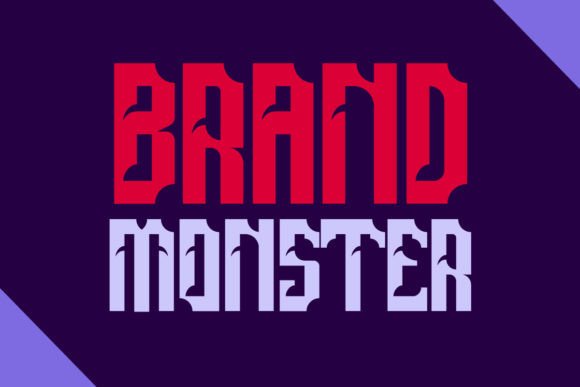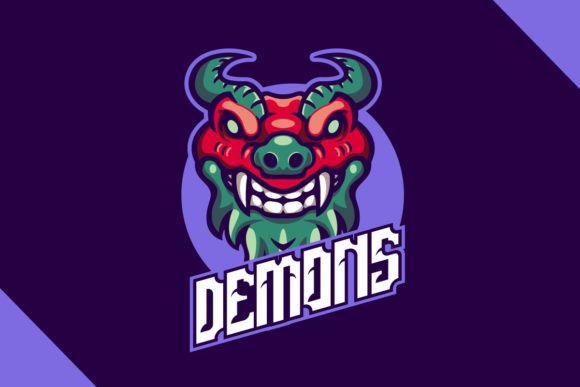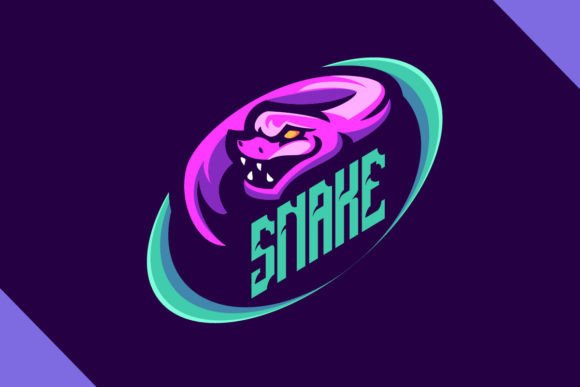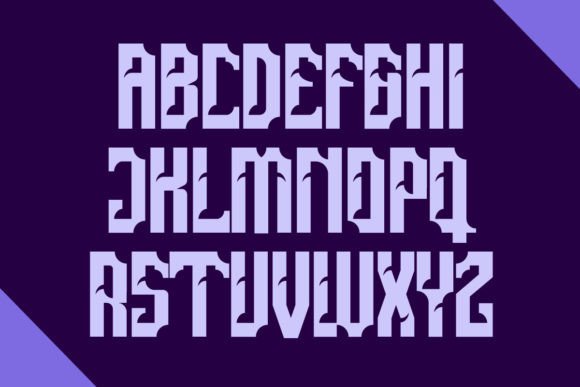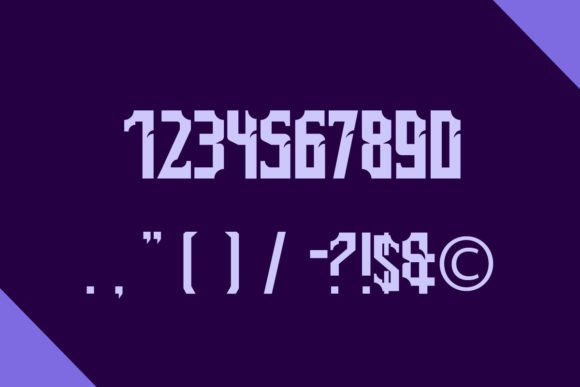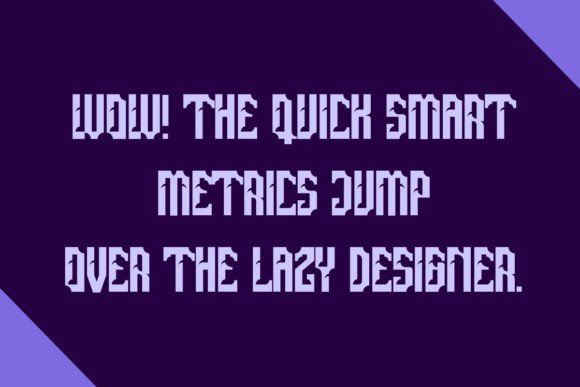
The Power of Dengaren Font: Elevate Your Designs with a Bold Statement
I’ll never forget the time I was working on a sports branding project, tasked with creating a logo that would make a bold statement. I had spent hours browsing through font libraries, but nothing seemed quite right. That was when I stumbled upon Dengaren Font. Its robust and vibrant feel instantly caught my attention, and I knew I had found the perfect fit. In this article, I’ll share my experience with Dengaren Font, its features, and how to make the most of it in your designs.
An Honest Review of Dengaren Font
- ✨ **Bold and Attention-Grabbing**: Dengaren Font is designed to make a statement. Its strong, confident lines demand attention and are perfect for sports-inspired designs.
- ✅ **Versatile**: This font is suitable for a wide range of projects, including team jerseys, league logos, movie posters, and more.
- 💥 **Vibrant Touch**: Dengaren Font adds a dynamic, energetic feel to any design, making it ideal for projects that require a bold personality.
While Dengaren Font is an excellent choice for many projects, there are a few things to keep in mind:
- 🤔 **Limited Use in Serif Contexts**: Dengaren Font is a sans-serif font, which means it may not be the best choice for projects that require a serif font.
- ⚠️ **Overuse Can Be Overwhelming**: While Dengaren Font is bold and attention-grabbing, using it excessively can be overwhelming. Balance is key.
The Backstory of Dengaren Font
Dengaren Font was designed with the intention of creating a bold and attention-grabbing font for sports-inspired designs. The designer, inspired by the energy and dynamism of sports, aimed to create a font that would capture the essence of competition and excitement.
Q: What is Dengaren Font best used for?
A: Dengaren Font is best used for sports-inspired designs, such as team jerseys, league logos, and movie posters.
Q: Is Dengaren Font available in different weights?
A: Yes, Dengaren Font comes in different weights, allowing you to adjust the font to suit your design needs.